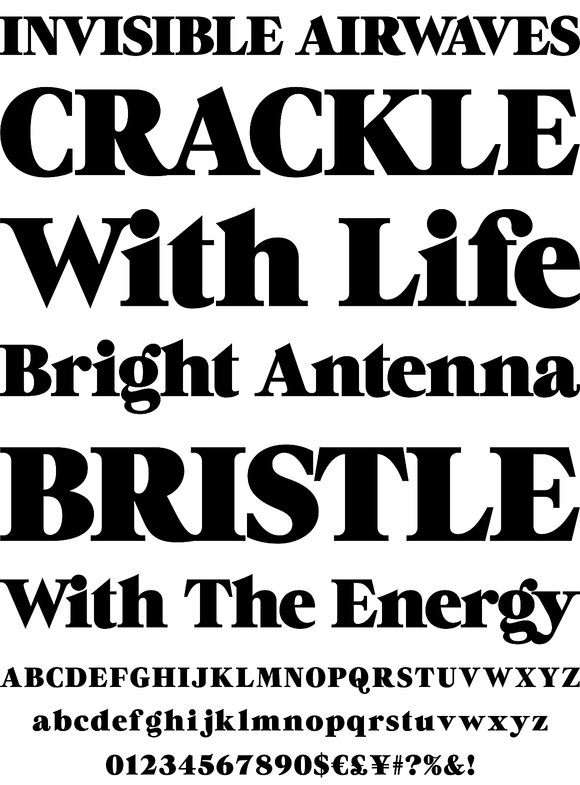
An extreme headline font with six optical variants. Black 24 is loosely based on ITC Grouch (1970) by Tom Carnase. Take your pick, or get them all, so you don't have to buy another later on.